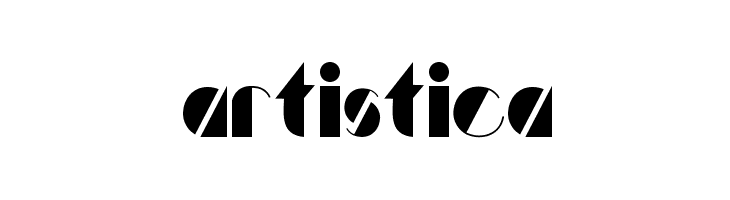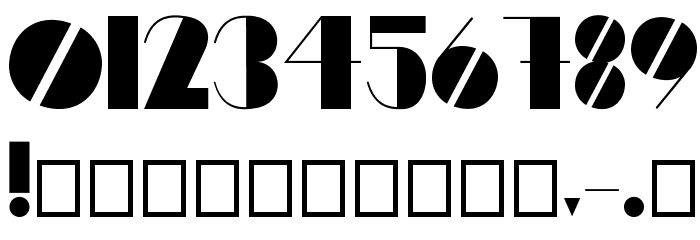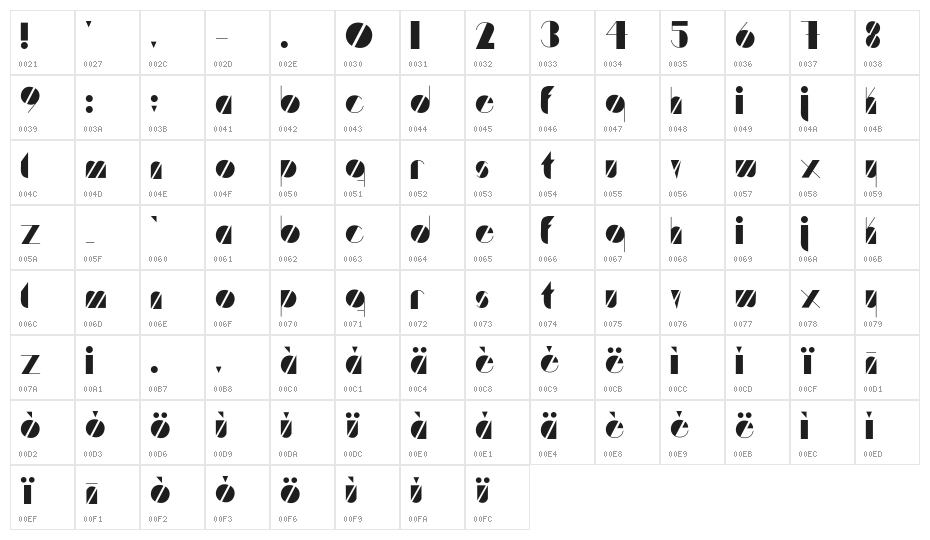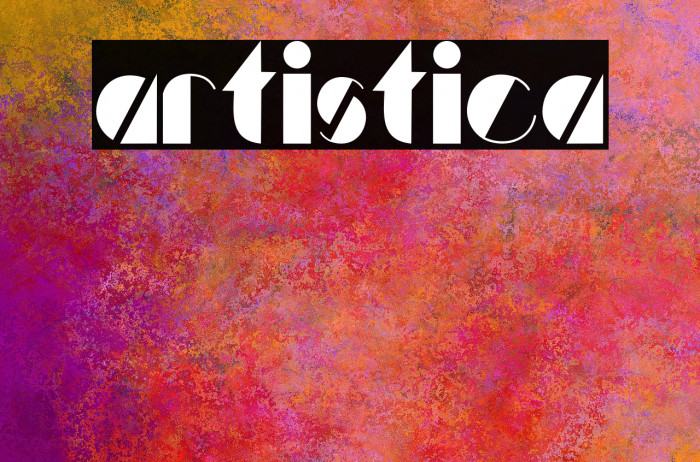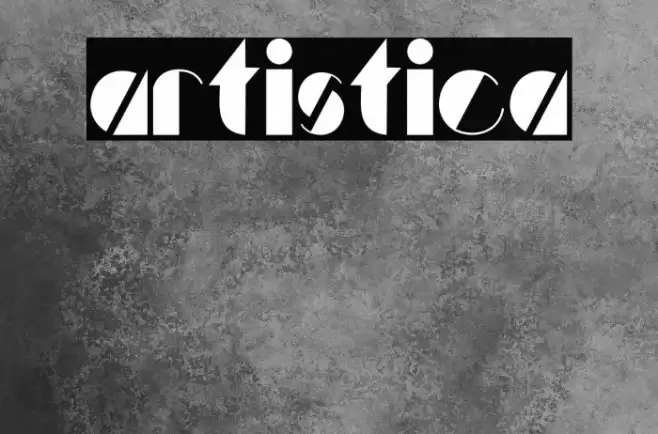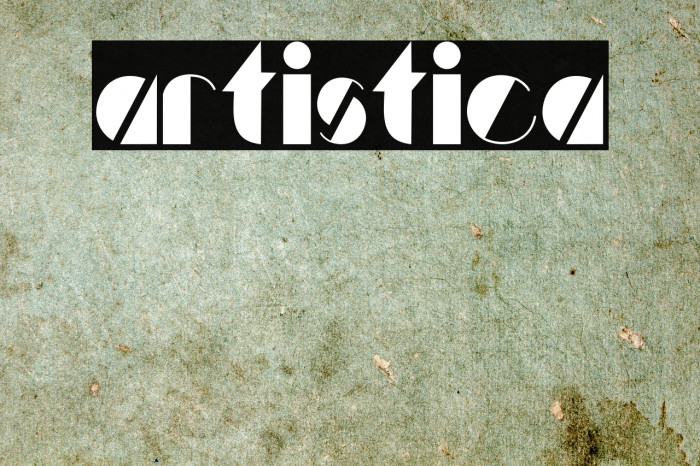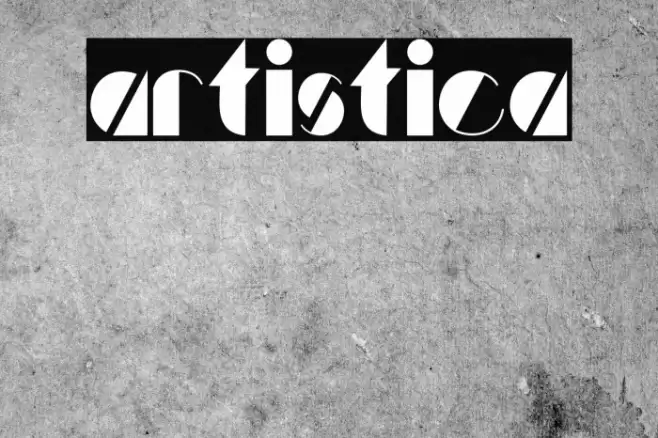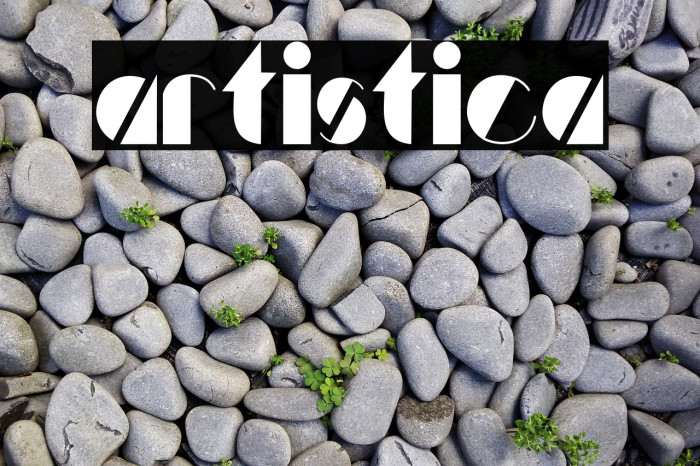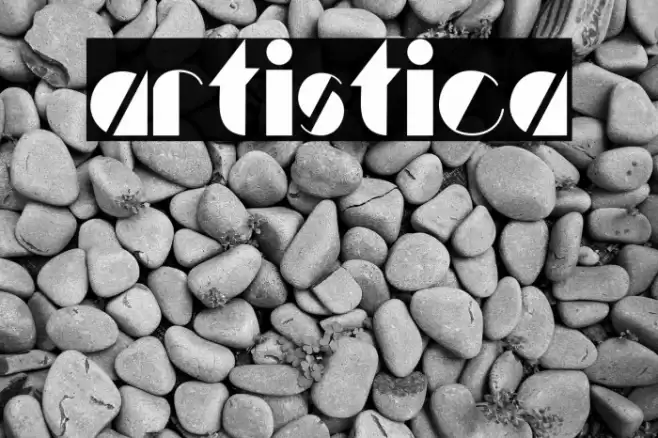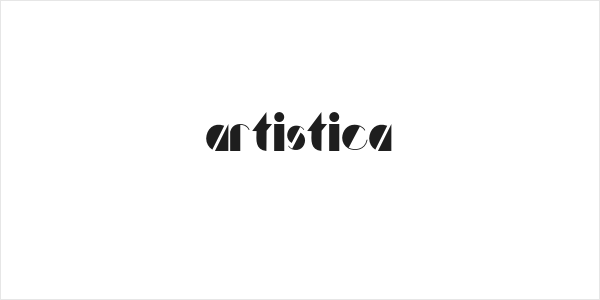
Artistica Font
Artistica Description
This font features a highly stylized and geometric design, characterized by its bold and artistic flair. The letters are crafted with a combination of sharp angles and smooth curves, creating a dynamic and visually striking appearance. The uppercase and lowercase letters maintain a consistent style, with some characters incorporating unique cutouts and shapes that add to the font's distinctiveness. The numerals follow the same geometric theme, ensuring a cohesive look across all characters. This font is ideal for projects that require a modern and artistic touch, making it suitable for creative branding, posters, and headlines.
| Proposed Projects | Ideal for creative branding, posters, headlines, and artistic projects. |